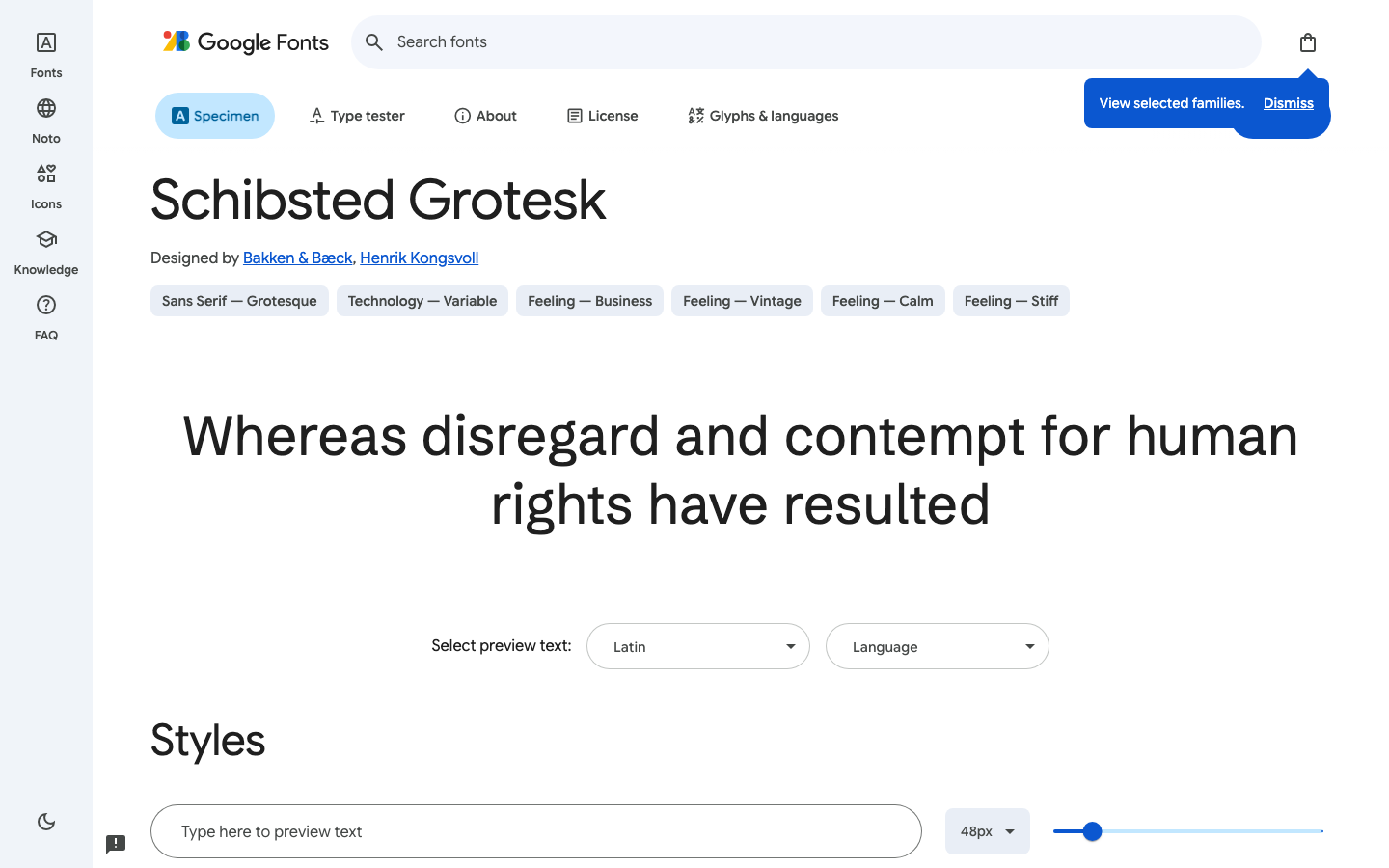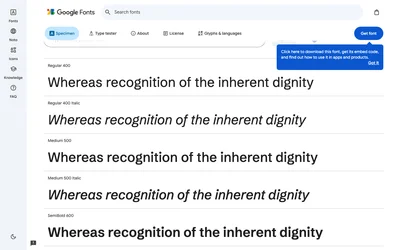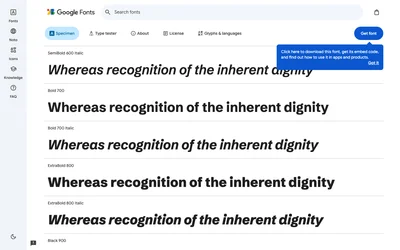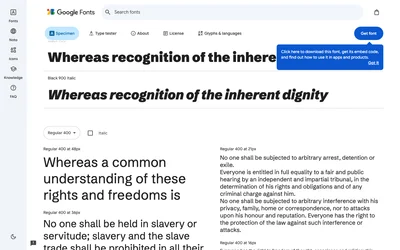
Favorit vs Schibsted Grotesk
Favorit and Schibsted Grotesk are both sans-serif typefaces sharing a neo-grotesque foundation. The two share 71% design similarity overall. Compare which suits your Editorial project.
| Feature | Favorit | Schibsted Grotesk |
| Variable Font | No | Yes |
| Weights | Multiple | Variable |
| Source | Dinamo | Bakken & Bæck |
- expressive design character
- Available as a variable font